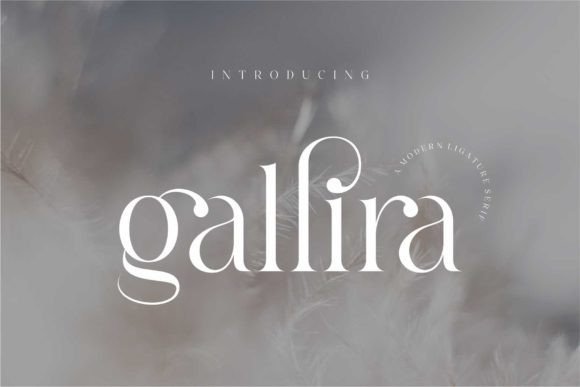
Introducing Gallira Font, the ultimate serif font that will captivate your senses and elevate your design game to new heights! Created by dylla studio, this elegant and bold typeface is the perfect choice for those seeking the best font for modern app designs.
Gallira Font is a true masterpiece, exuding an air of sophistication and timeless beauty. Its stunning serifs add a touch of elegance to any project, leaving a lasting impression on those who lay eyes on it. Whether you're designing wedding invitations, crafting beautiful stationary art, or creating eye-catching social media posts, this font will bring a touch of magic to every piece.
Unleash your creativity and let Gallira Font be your artistic muse. With its incredibly versatile style, this font enables you to explore endless possibilities in your designs. Its seamless integration with modern app interfaces will make your app stand out from the crowd, leaving users in awe of its flawless beauty.
But Gallira Font is not just about aesthetics; it goes beyond that. It is a font that evokes emotions and tells stories. Every curve and stroke is meticulously crafted to convey a message, making it the perfect companion for any storytelling endeavor. Whether you're writing a compelling blog post, designing an engaging e-book, or crafting an immersive user experience, this font will bring your words to life and leave a lasting impact on your audience.
Imagine the power of Gallira Font in your hands. Its commanding presence and attention to detail will make your designs shine like never before. With its wide range of weights and styles, you have the freedom to experiment and create unique compositions that truly reflect your vision.
Unleash your creativity. Embrace elegance. Elevate your designs with Gallira Font.